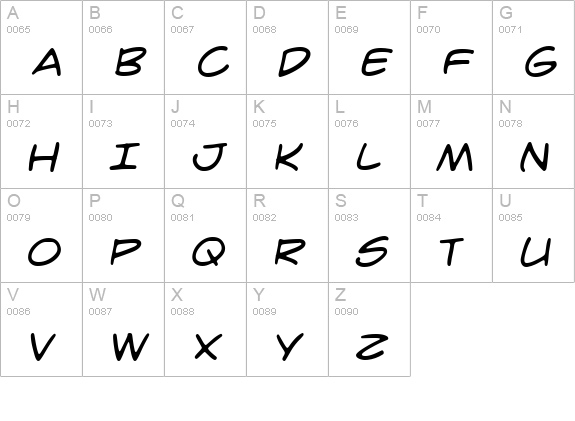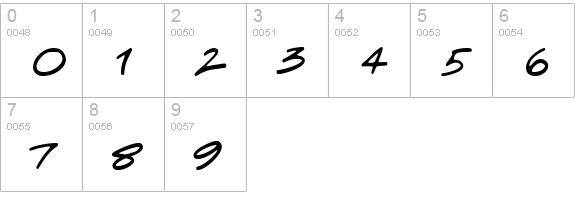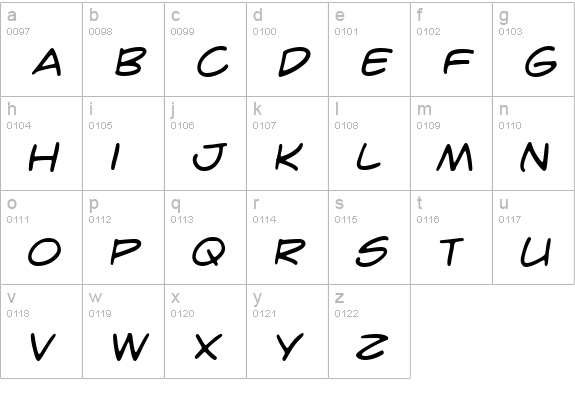
CrimeFighter BB Font Details
CrimeFighter BB font is a bold and dynamic typeface that exudes strength and power. With its sharp edges and commanding presence, this font is perfect for conveying a sense of authority and determination in your designs. Whether you are creating posters, banners, or logos for crime-related content, this font will make a powerful statement. What sets CrimeFighter BB font apart is that it is available for free download at FontsMarket.com. This means that you can easily access this impactful font without any cost, making it a valuable resource for your creative projects. Embrace the boldness and intensity of CrimeFighter BB font in your designs and watch as it elevates your messaging to new heights.